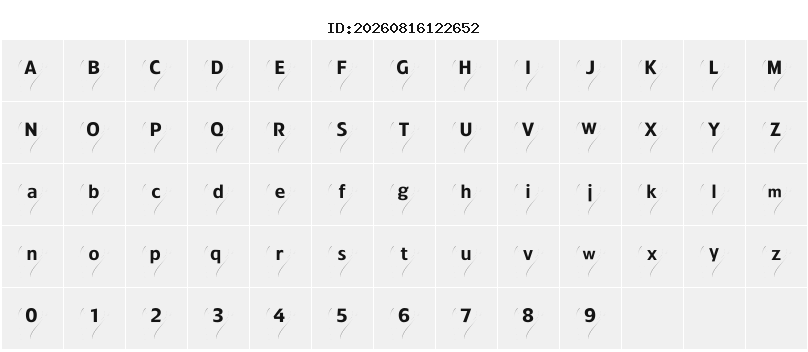
StagHorn Preview
• Font Name: StagHorn
• Font ID: Perry Mason................ StagHorn
• Full Font Name: StagHorn
• Version: Perry Mason................ 2 04 01
• PostScript Name: StagHorn
About StagHorn.ttf
StagHorn.ttf is a modern, elegant sans-serif font designed for ultimate readability and visual harmony. Perfect for branding, headlines, web design, and print materials.